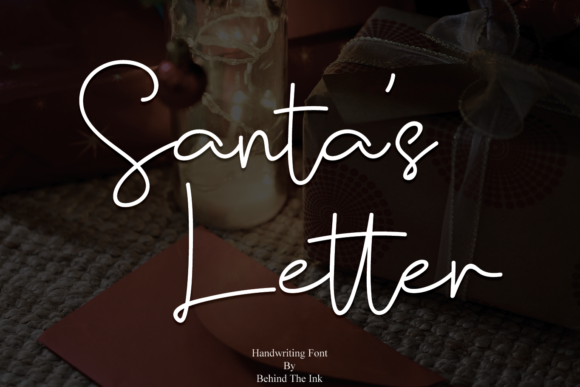
Feast your eyes on Santa's Letter, a script font that dances across the screen like a midwinter's dream. Behind the Ink, the creative minds behind this masterpiece, have captured the magic of the season in every curve and swirl of this font. Santa's Letter is more than just a font; it's a portal to a world where snowflakes twirl, reindeer prance, and the air is thick with the scent of gingerbread and candy canes.
Imagine your words taking shape in this enchanting font, each letter flowing into the next like a whispered secret. Whether you're crafting holiday greetings, Christmas cards, or festive invitations, Santa's Letter will add a touch of warmth and cheer to your creations. Your readers will feel as if they've been transported to a cozy cabin in the woods, surrounded by the love and laughter of family and friends.
With Santa's Letter, you can transform ordinary words into extraordinary tales. Its elegant and expressive style will make your messages shine brighter than a star on a frosty night. Let your creativity run wild as you explore the endless possibilities of this font.